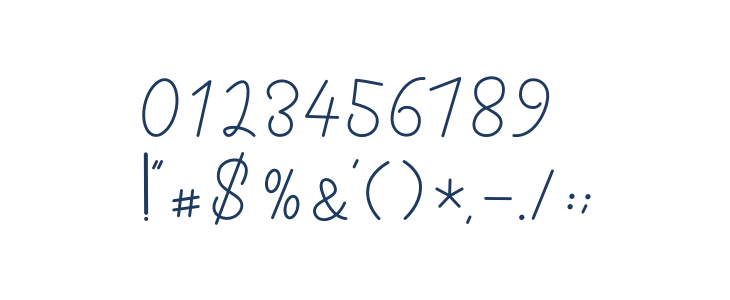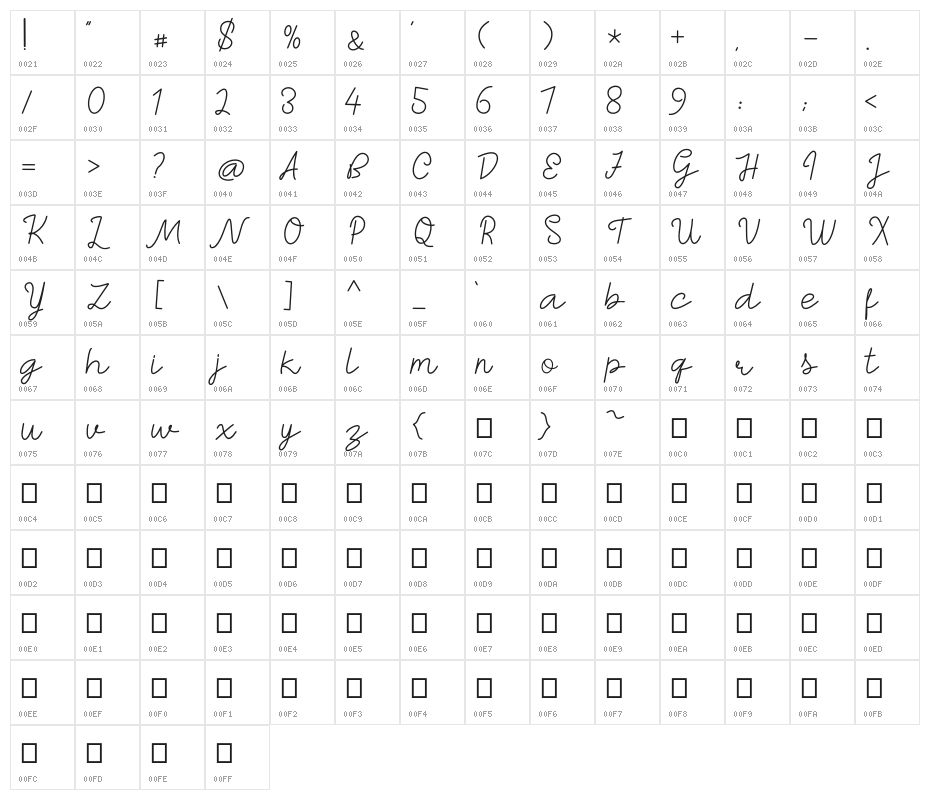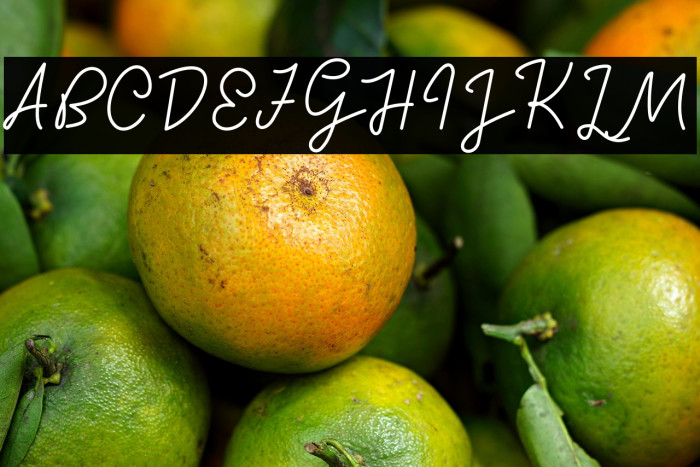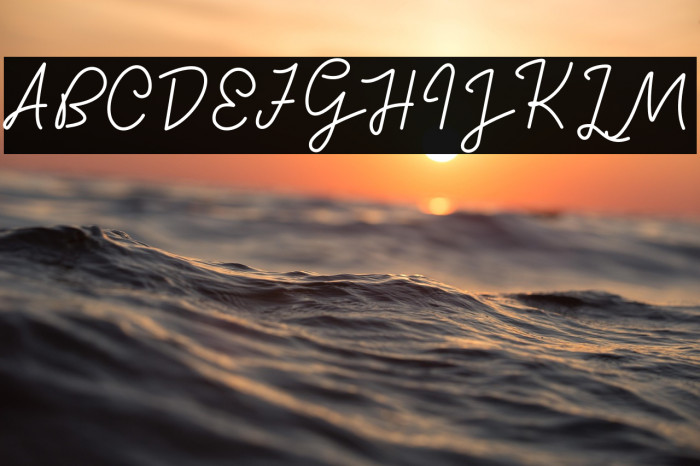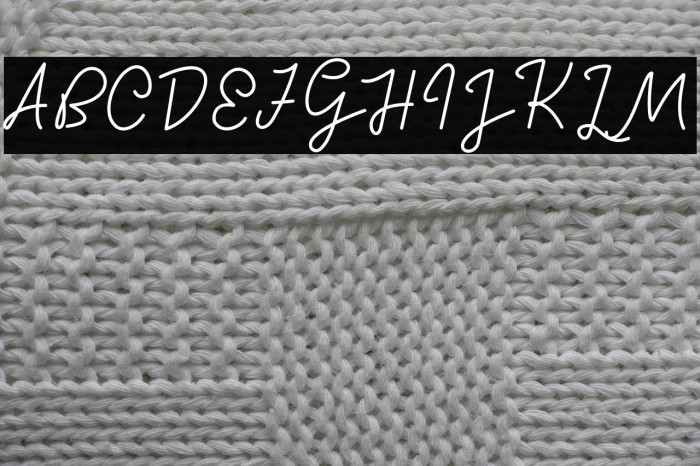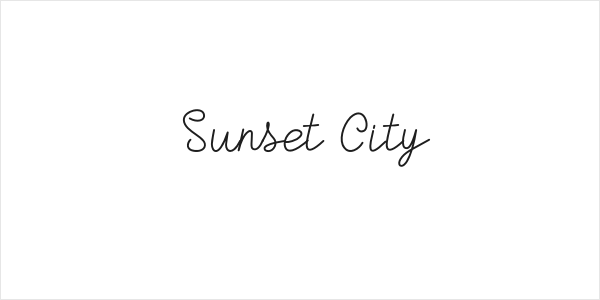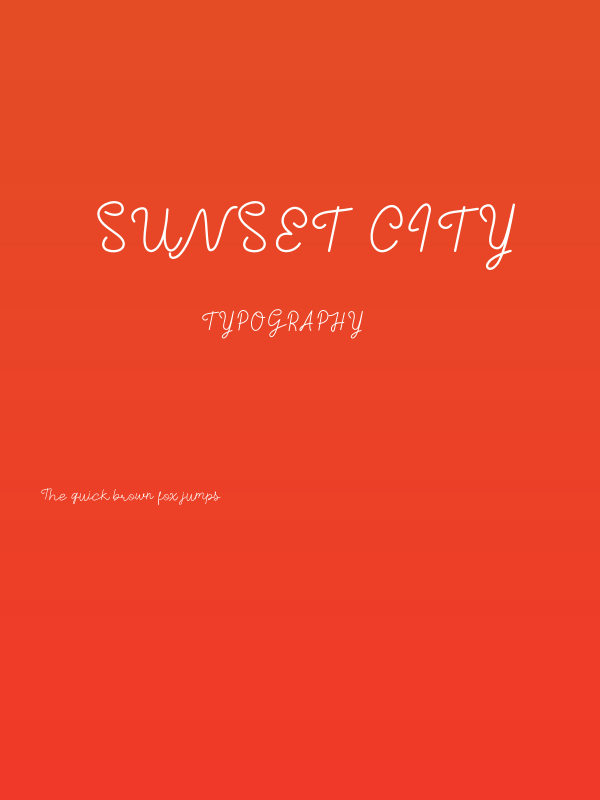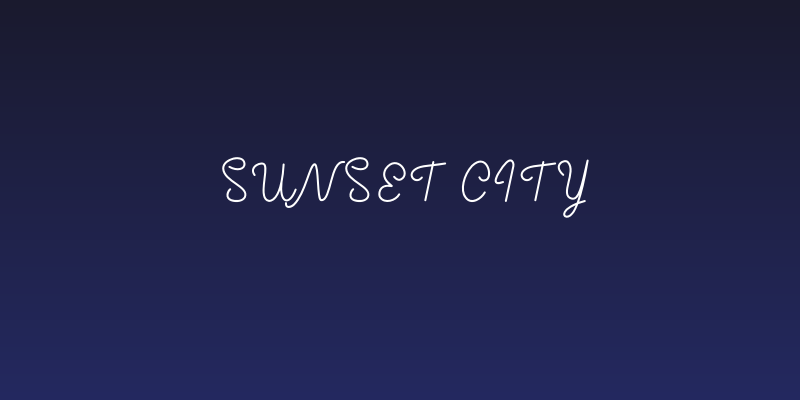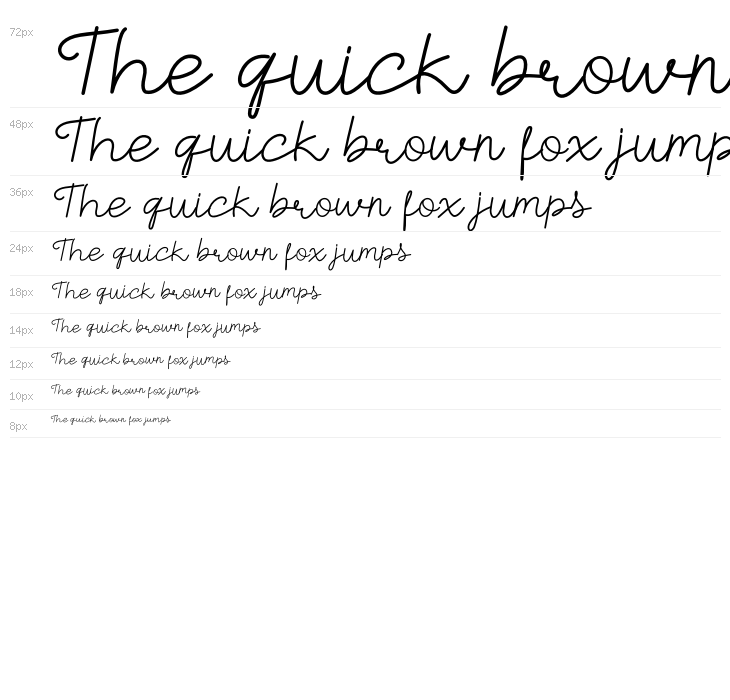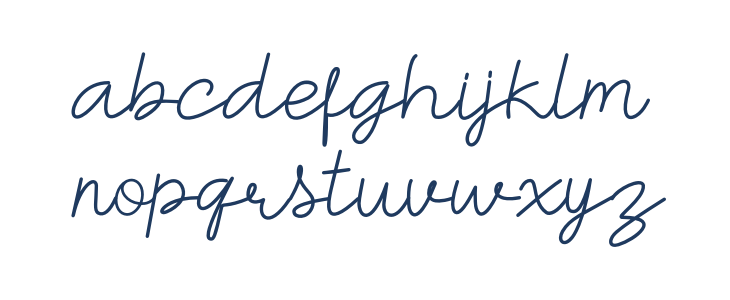
Sunset City Font
Sunset City Description
This font features a charming and fluid handwritten style, characterized by its smooth, flowing curves and elegant strokes. The letters are connected in a cursive manner, giving it a natural and personal touch. The uppercase letters maintain a consistent height, while the lowercase letters exhibit a slight slant, enhancing the handwritten feel. The numerals are clear and easy to read, with a playful yet sophisticated appearance. Special characters are seamlessly integrated, maintaining the overall aesthetic. This font exudes a sense of warmth and friendliness, making it suitable for a variety of creative applications.
| Proposed Projects | Ideal for wedding invitations, greeting cards, personal branding, and creative projects requiring a personal touch. |